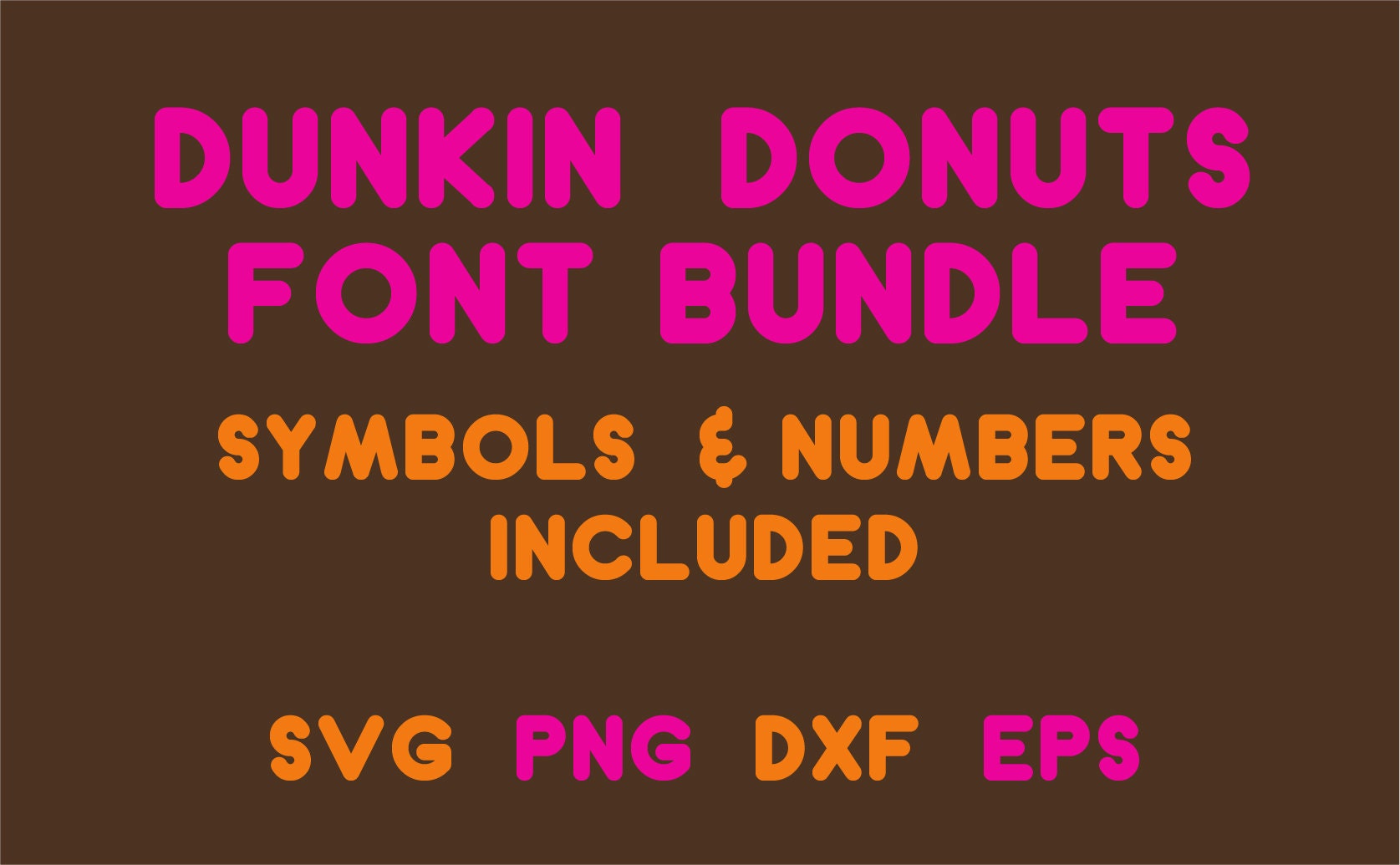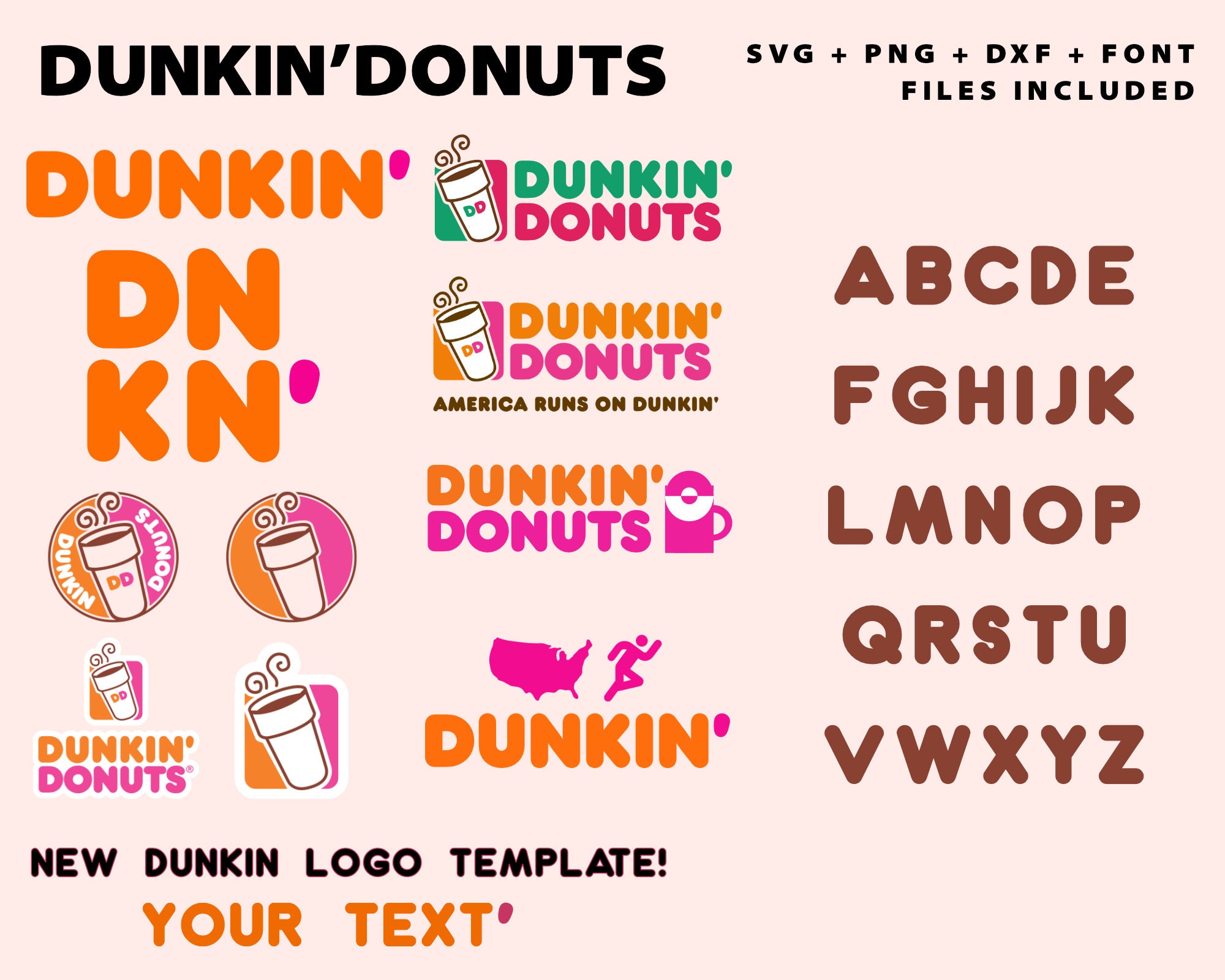
Dunkin Donuts Logo Font
Dunkin Donuts Logo Font - Web dunkin is a bold, smooth font based loosely on the popular logo of the “dunkin’ donuts” restaurant franchise. Web learn about the current and old dunkin' logo fonts, designed by colophon and frankfurter, and their features and history. Web this logo font is here refers to the typeface that is used in the logo of dunkin’ donuts. And as many people had.
Web learn about the current and old dunkin' logo fonts, designed by colophon and frankfurter, and their features and history. And as many people had. Web dunkin is a bold, smooth font based loosely on the popular logo of the “dunkin’ donuts” restaurant franchise. Web this logo font is here refers to the typeface that is used in the logo of dunkin’ donuts.
Web this logo font is here refers to the typeface that is used in the logo of dunkin’ donuts. Web learn about the current and old dunkin' logo fonts, designed by colophon and frankfurter, and their features and history. And as many people had. Web dunkin is a bold, smooth font based loosely on the popular logo of the “dunkin’ donuts” restaurant franchise.
Web learn about the current and old dunkin' logo fonts, designed by colophon and frankfurter, and their features and history. And as many people had. Web this logo font is here refers to the typeface that is used in the logo of dunkin’ donuts. Web dunkin is a bold, smooth font based loosely on the popular logo of the “dunkin’.
Web this logo font is here refers to the typeface that is used in the logo of dunkin’ donuts. Web dunkin is a bold, smooth font based loosely on the popular logo of the “dunkin’ donuts” restaurant franchise. Web learn about the current and old dunkin' logo fonts, designed by colophon and frankfurter, and their features and history. And as.
Web learn about the current and old dunkin' logo fonts, designed by colophon and frankfurter, and their features and history. And as many people had. Web this logo font is here refers to the typeface that is used in the logo of dunkin’ donuts. Web dunkin is a bold, smooth font based loosely on the popular logo of the “dunkin’.
Web dunkin is a bold, smooth font based loosely on the popular logo of the “dunkin’ donuts” restaurant franchise. Web learn about the current and old dunkin' logo fonts, designed by colophon and frankfurter, and their features and history. And as many people had. Web this logo font is here refers to the typeface that is used in the logo.
Web learn about the current and old dunkin' logo fonts, designed by colophon and frankfurter, and their features and history. Web dunkin is a bold, smooth font based loosely on the popular logo of the “dunkin’ donuts” restaurant franchise. And as many people had. Web this logo font is here refers to the typeface that is used in the logo.
Web learn about the current and old dunkin' logo fonts, designed by colophon and frankfurter, and their features and history. Web this logo font is here refers to the typeface that is used in the logo of dunkin’ donuts. Web dunkin is a bold, smooth font based loosely on the popular logo of the “dunkin’ donuts” restaurant franchise. And as.
Web dunkin is a bold, smooth font based loosely on the popular logo of the “dunkin’ donuts” restaurant franchise. Web this logo font is here refers to the typeface that is used in the logo of dunkin’ donuts. And as many people had. Web learn about the current and old dunkin' logo fonts, designed by colophon and frankfurter, and their.
Web this logo font is here refers to the typeface that is used in the logo of dunkin’ donuts. Web learn about the current and old dunkin' logo fonts, designed by colophon and frankfurter, and their features and history. And as many people had. Web dunkin is a bold, smooth font based loosely on the popular logo of the “dunkin’.
And As Many People Had.
Web this logo font is here refers to the typeface that is used in the logo of dunkin’ donuts. Web dunkin is a bold, smooth font based loosely on the popular logo of the “dunkin’ donuts” restaurant franchise. Web learn about the current and old dunkin' logo fonts, designed by colophon and frankfurter, and their features and history.